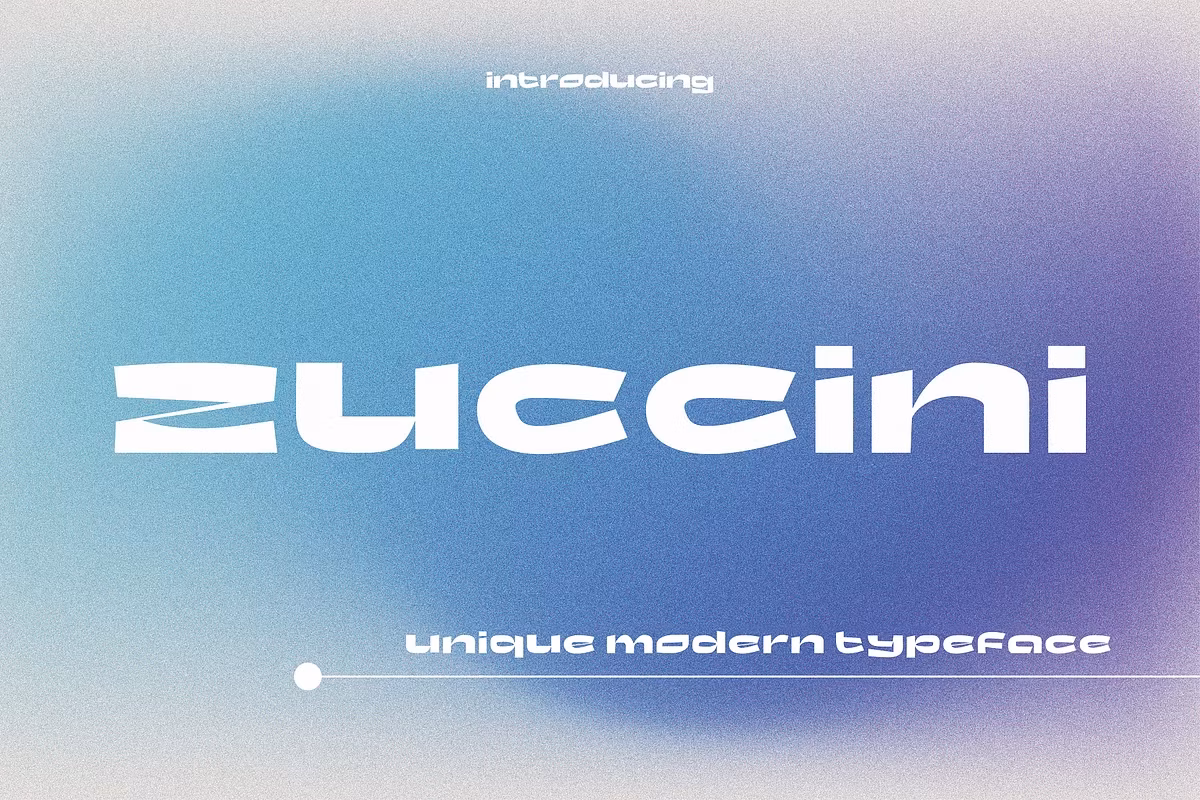
The Zuccini - Unique Modern Typeface Free Download is a sleek and contemporary typeface designed to add a touch of sophistication and uniqueness to your designs. With its clean lines, geometric shapes, and modern appeal, this font is perfect for creating stylish branding, websites, logos, and print materials. Whether you're working on a minimalist design or a bold, eye-catching project, Zuccini elevates your work with its distinctive, modern flair.
Zuccini - Unique Modern Typeface Free Download is ideal for designers who need a versatile, high-quality font with a modern, distinctive look. Perfect for digital and print projects, this font will bring elegance and style to your work. Download it today and start creating standout designs with Zuccini's modern and clean style!